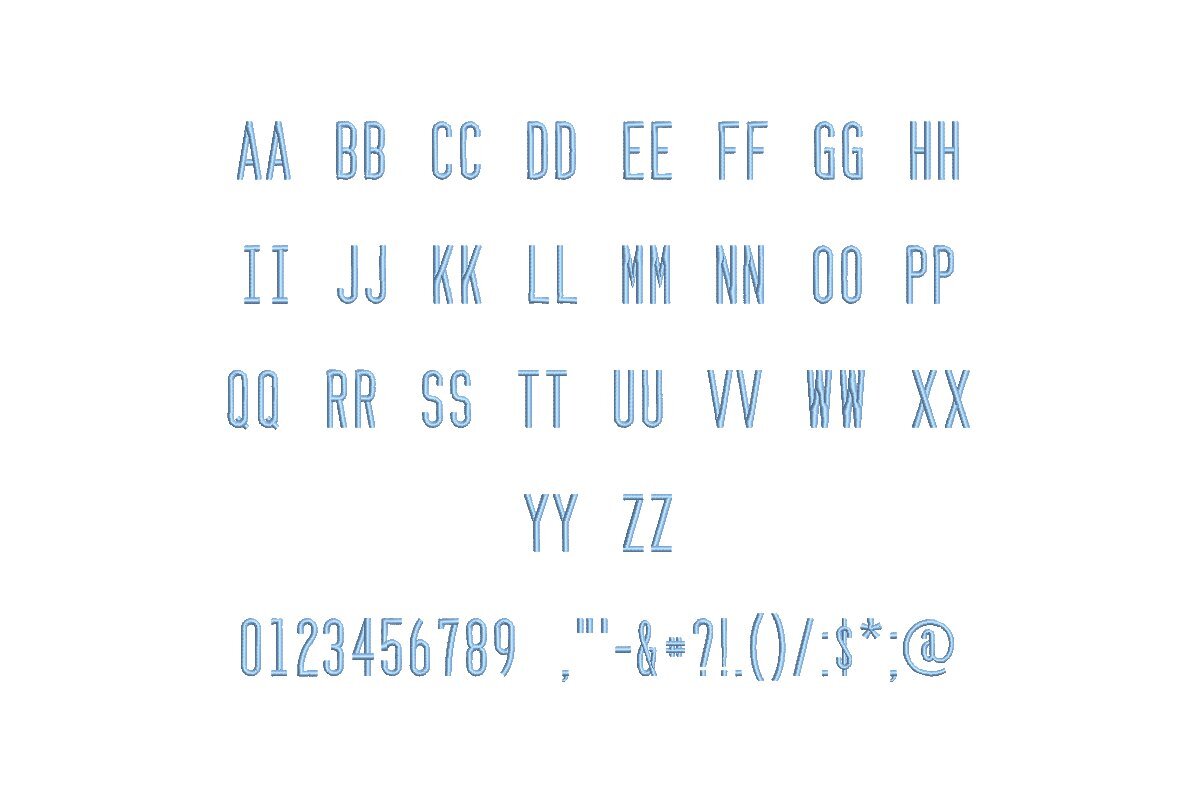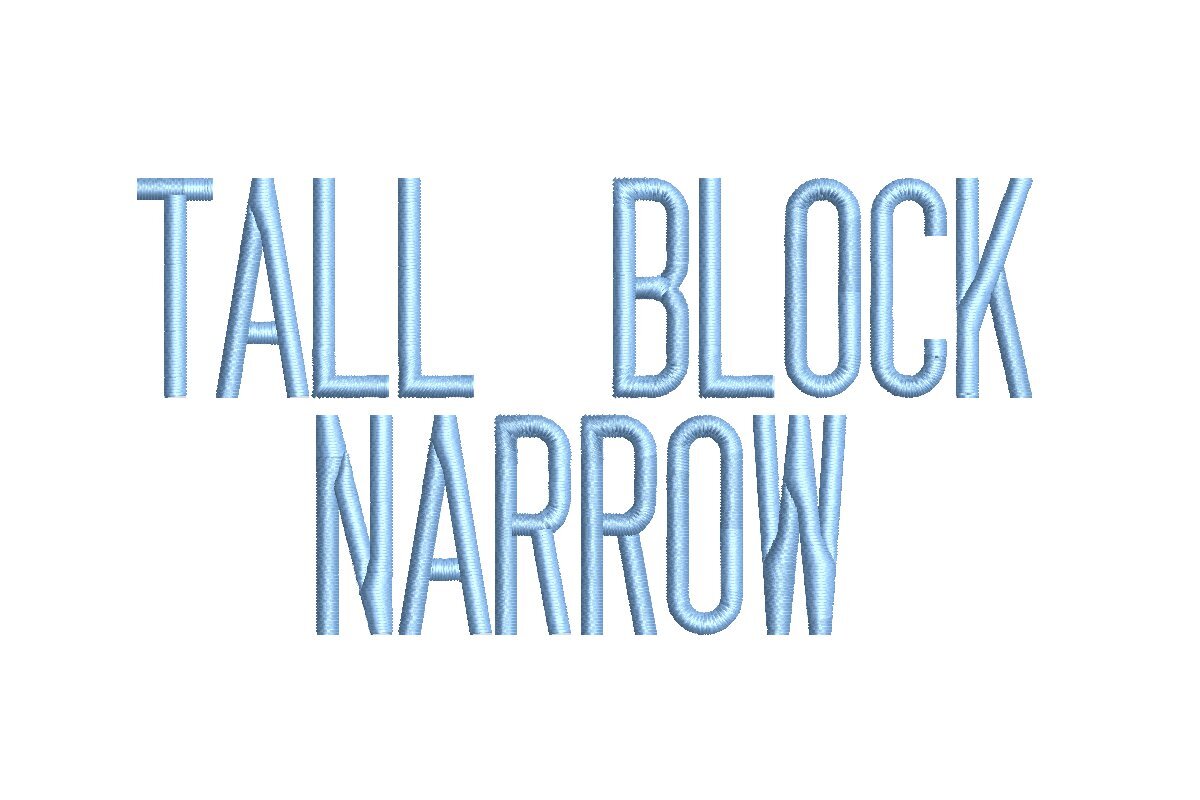
Introducing the Tall Block Narrow ESA font – the ultimate choice for your embroidery projects! Crafted to perfection, this font seamlessly integrates with industry-leading software like Wilcom Studio e4.5.6 and Hatch 3, versions and beyond. Elevate your designs with this sleek, modern, and space-saving font. Its tall, narrow letters make a bold statement, perfect for monograms, logos, and intricate details. Compatible with embroidery machines, this font ensures seamless stitching precision. Create eye-catching and professional embroidery effortlessly. Boost your productivity with our Tall Block Narrow ESA font, and experience design excellence like never before. Upgrade your embroidery game today!